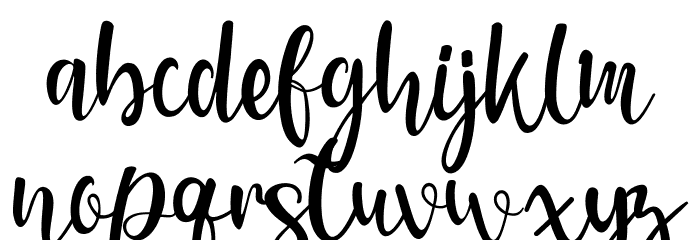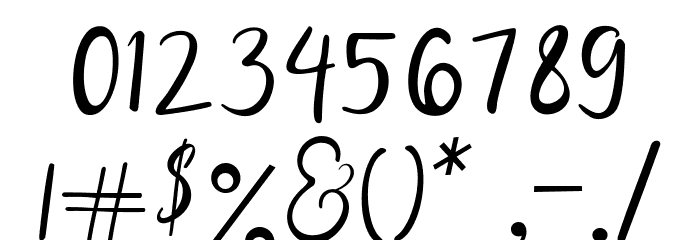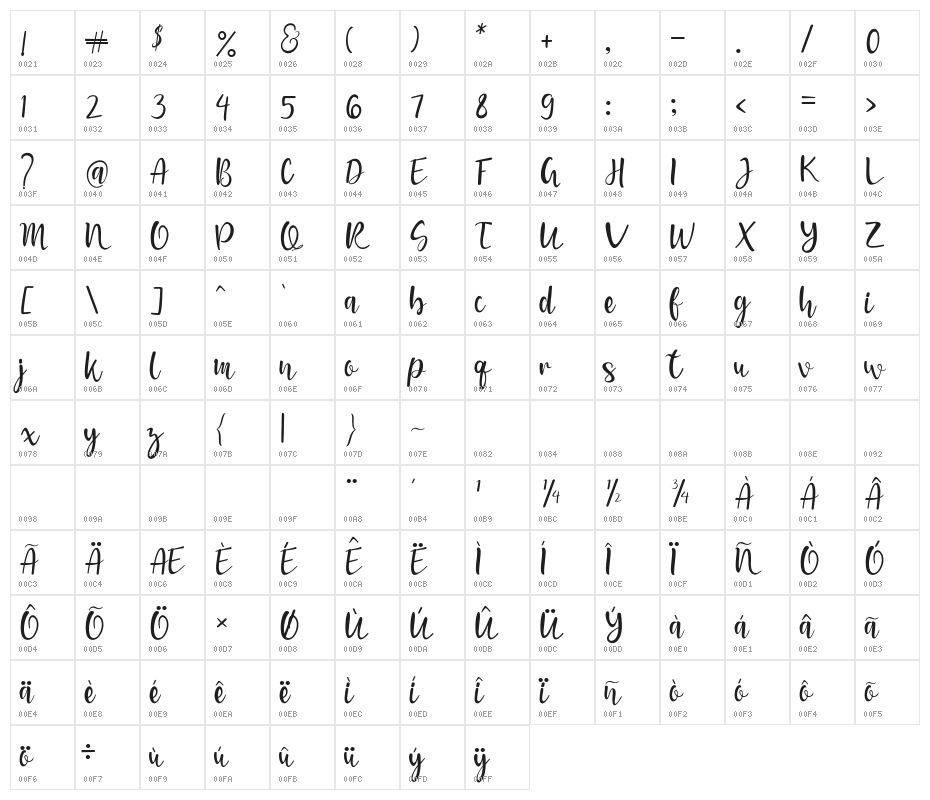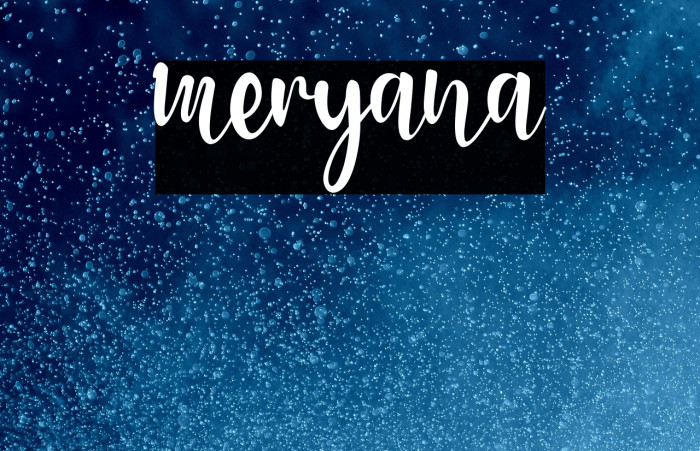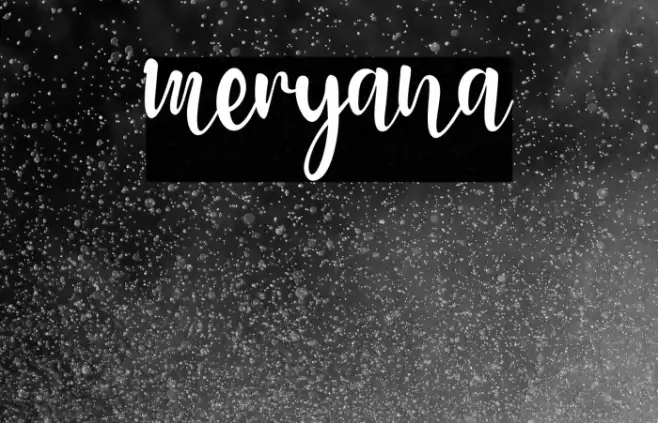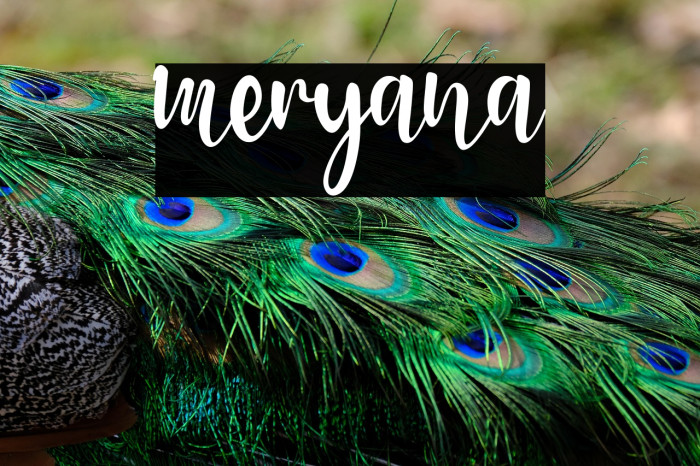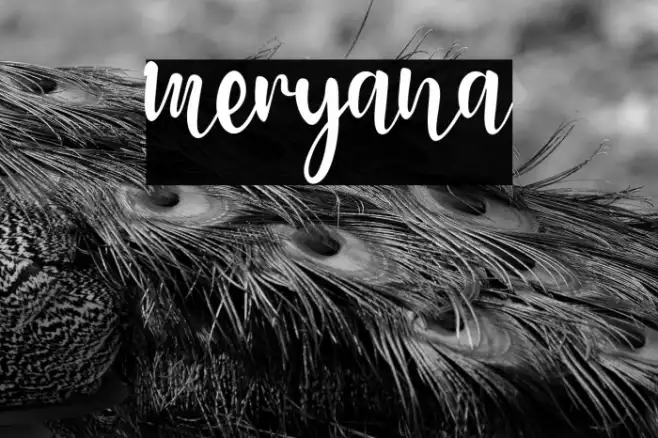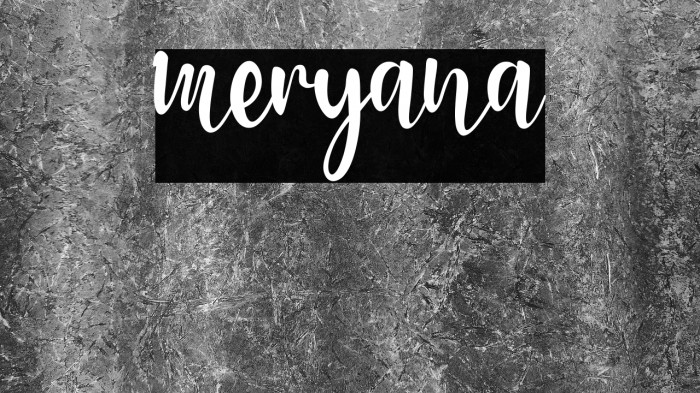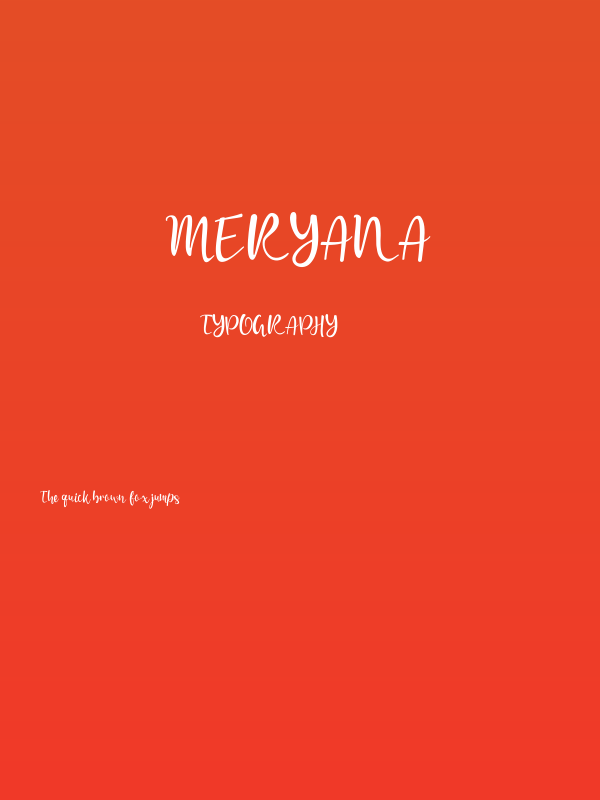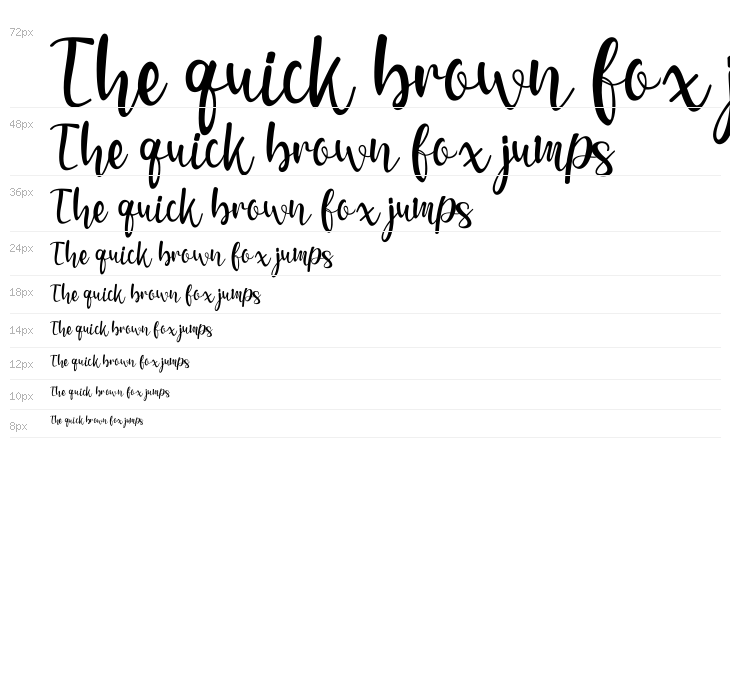
meryana Font
This font showcases a lively and expressive handwritten style, characterized by its fluid and dynamic letterforms. The uppercase letters are bold and slightly slanted, giving a sense of movement and energy. The lowercase letters maintain a consistent flow, with some characters featuring playful loops and swashes. The numerals are clear and legible, matching the overall aesthetic of the font. Special characters are creatively designed, adding to the font's unique personality. The strokes are moderately thick, providing a balanced contrast that enhances readability while maintaining the font's artistic flair.
A lively and expressive handwritten font with dynamic letterforms and playful swashes.
- Proposed Projects: Ideal for creative projects such as greeting cards, invitations, branding, and social media graphics.
- Category: Handwritten
- Use Case: Logos, Headlines, Invitations